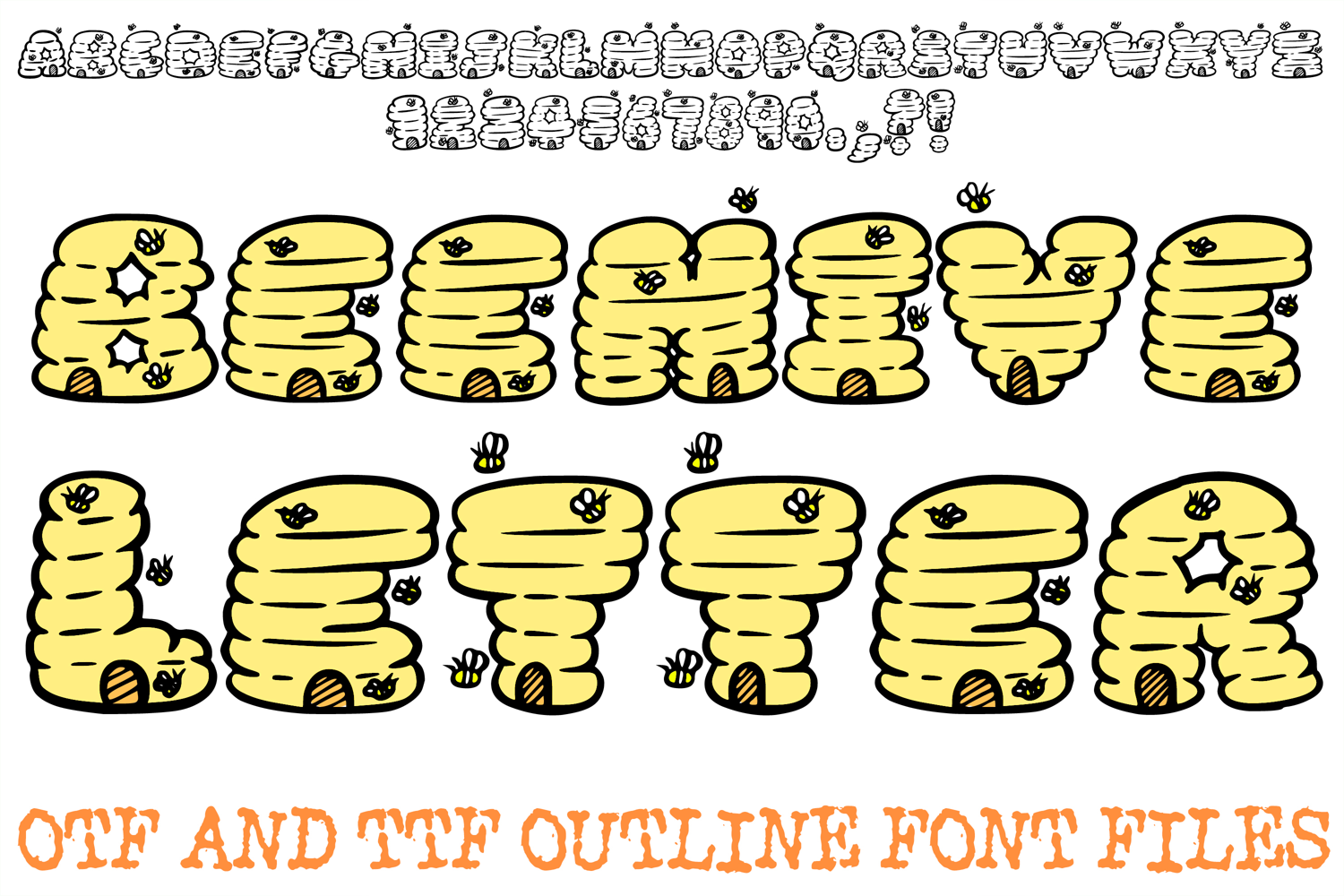
The Beehive Letters Font is a buzz-worthy, decorative display typeface that brings a whimsical, nature-inspired charm to digital design. Featuring chunky, tiered letterforms modeled after classic honeybee hives, each character is accented with adorable hand-drawn bees and entrance holes. It is a sweet choice for designers working on spring-themed stationery, organic food packaging, garden boutique branding, and playful classroom decor.
Rendered with thick, bold outlines and a sunny yellow palette, this font captures a "modern cottagecore" aesthetic that feels both warm and industrious. Whether you are creating custom sublimation prints for summer apparel or a standout logo for a local honey producer, the high-quality OTF and TTF formats ensure a crisp, professional finish for both digital and physical media.
Intricate Beehive Texture: The horizontal "stacked" ridges provide immediate tactile depth, creating a 3D effect that makes titles and headers pop.
Whimsical Bee Accents: Integrated bee illustrations and "hive doors" within the characters add a storytelling element to your typography without the need for extra clipart.
Bold Crafting Outlines: The clean, sturdy outlines make this an ideal choice for vinyl cutting, screen printing, and precision crafting projects like cake toppers.
High-Contrast Versatility: Provided as a complete character set with numbers and punctuation, this font maintains legibility while offering a highly unique, artisan look.